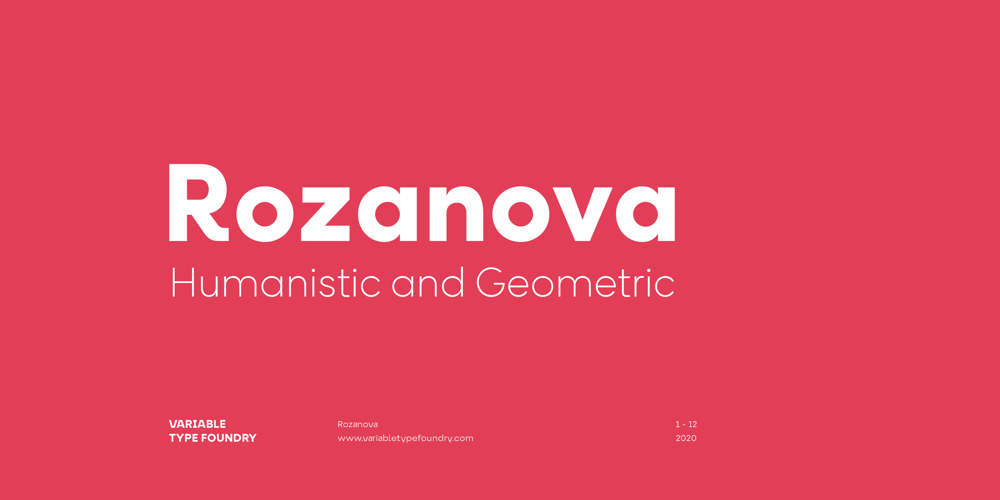
Rozanova Font Family was designed by Lole Román and published by Variable Type Foundry. Rozanova contains 36 styles and family package options. Rozanova glyph proportions and shapes make it functional, legible and with personality. The personal character of its shapes makes Rozanova a versatile, dynamic, recognizable, legible and functional typeface, perfect for editorial projects, corporate use, and strong brand identity design such as posters, logotypes and packaging. This typeface shows two version shapes: geometric and humanist. Rozanova consists of a standard version (geometric) and an alternative version (humanistic), each in 9 weights (ranging from Thin to Black) with matching italics. The font also includes OpenType features, like case-sensitive forms, and the whole 503 character set supports more than 200 languages.